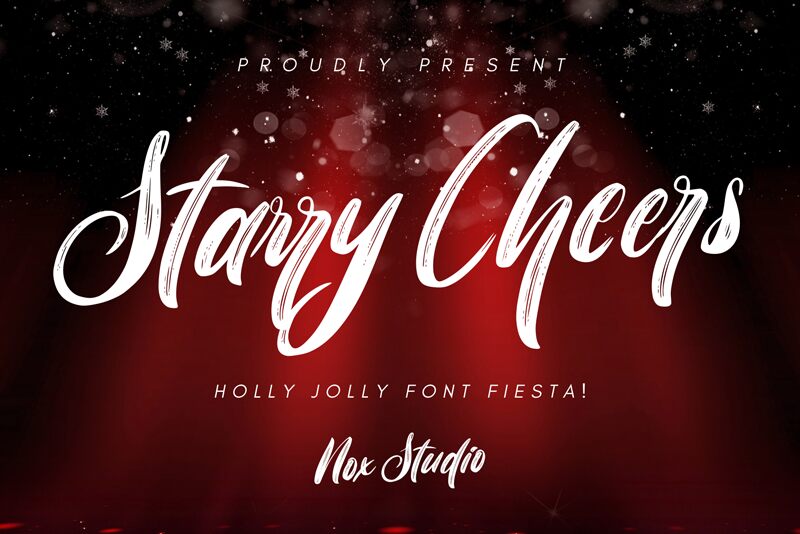
Starry Cheers font by Sarif Letter is a free holiday font with an elegant, flowing design, perfect for adding a touch of festive charm to any project. Its energetic, expressive style combines modern flair with traditional calligraphy, creating a dynamic and lively appearance. With its signature style, Starry Cheers is ideal for creating a sophisticated ambiance and celebratory mood.
Perfectly suited for holiday cards, invitations, posters, or any design needing a festive touch, this font can also be used on branding, magazine covers, book titles, website headers, social media graphics, product packaging, brochures, or store signs.